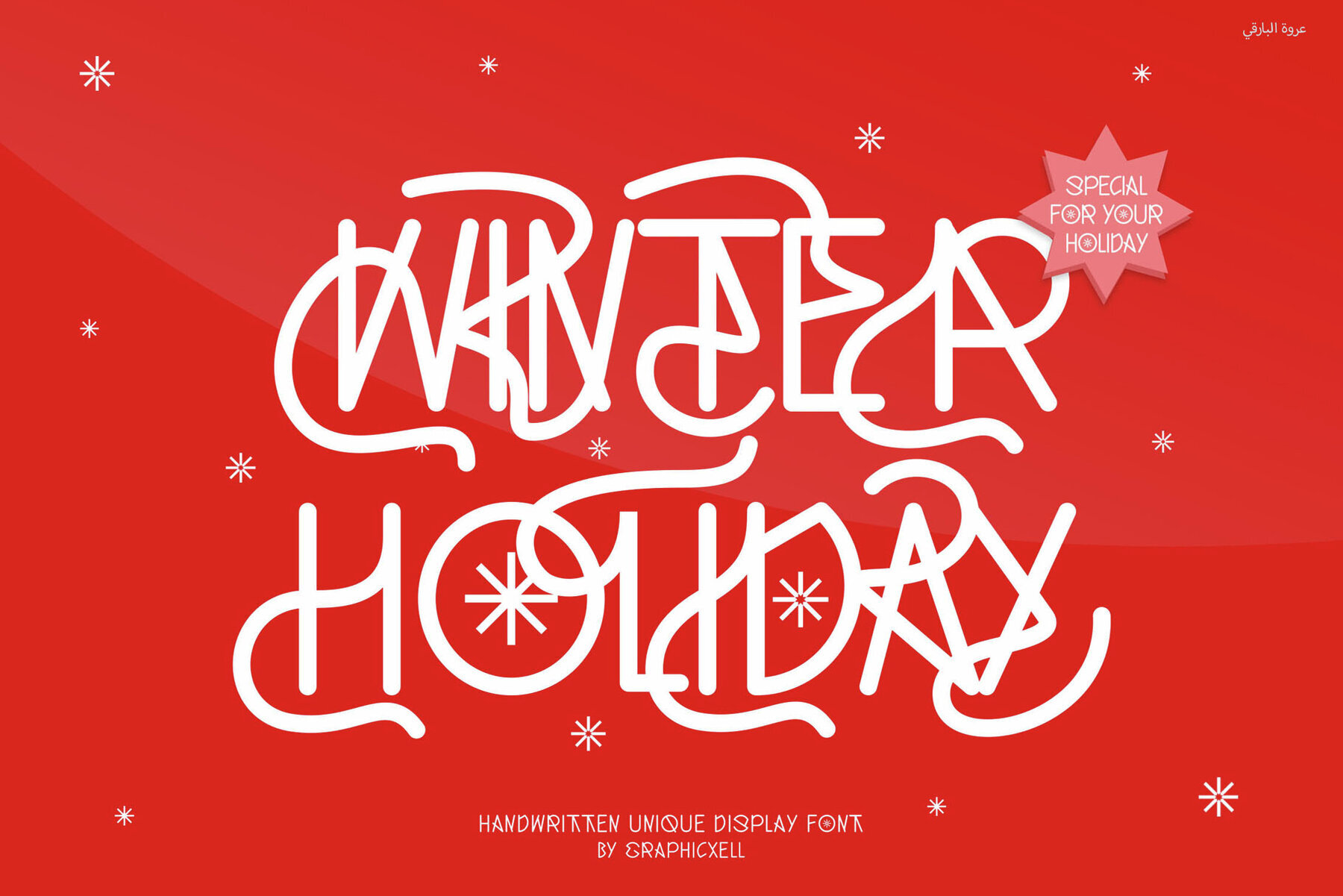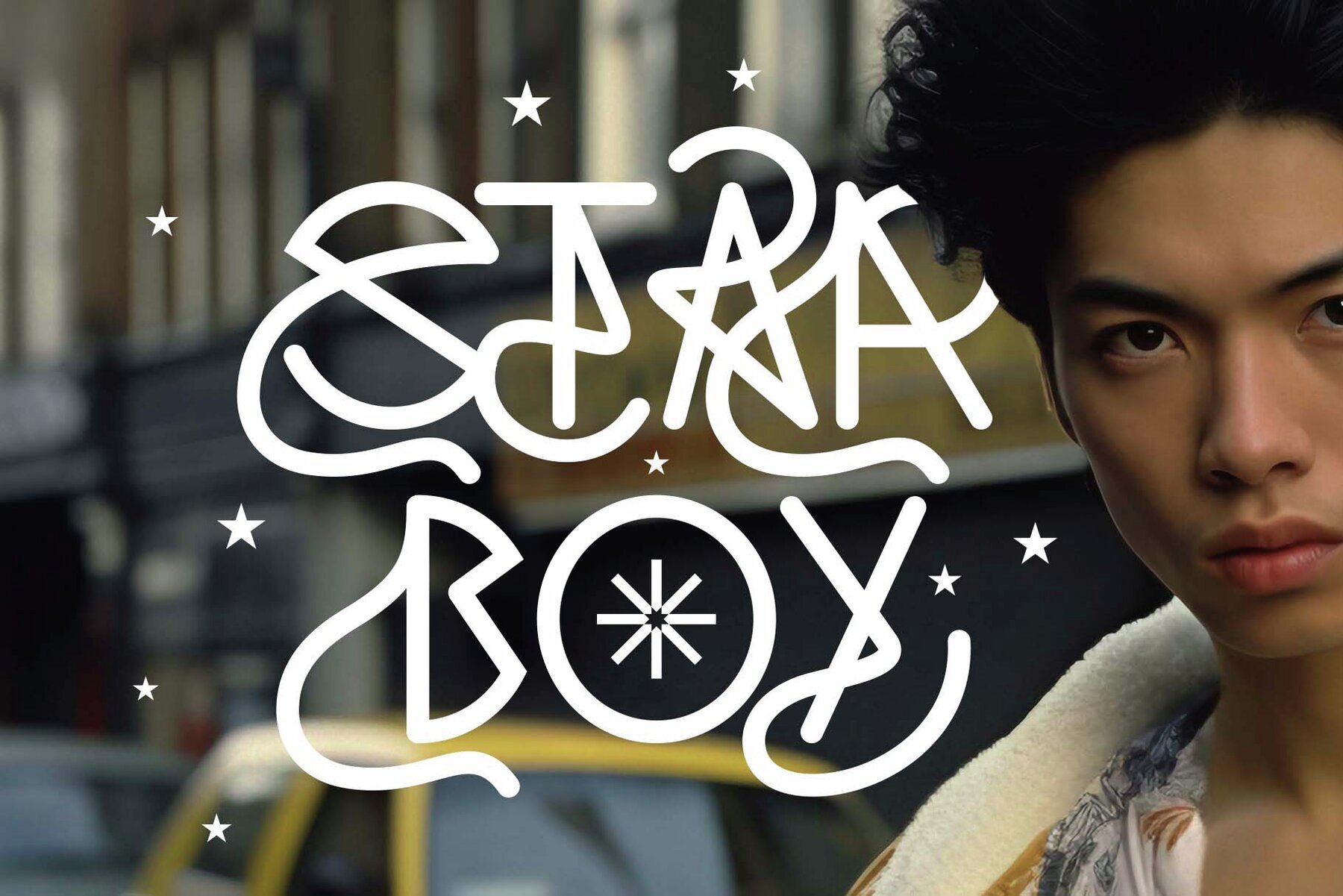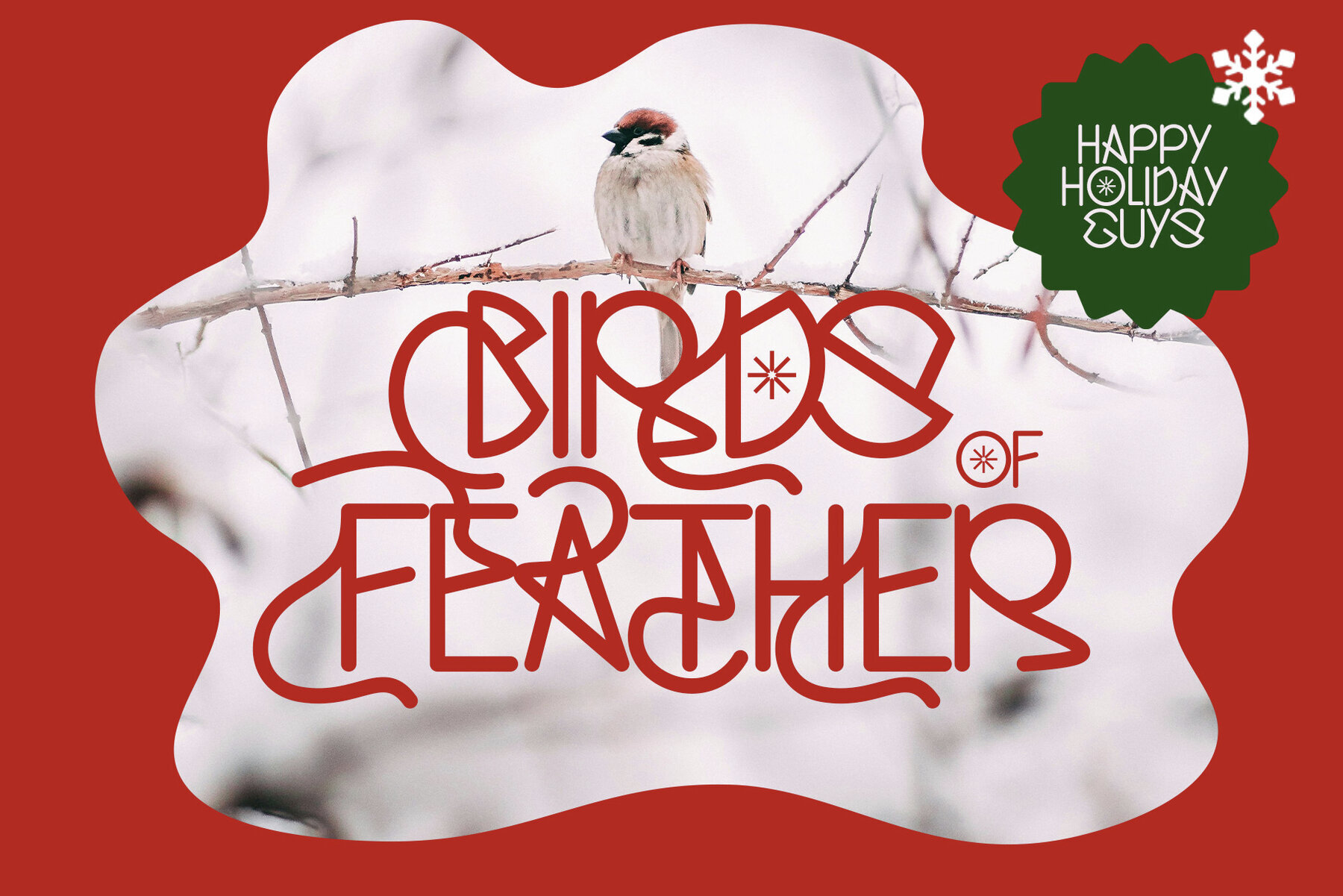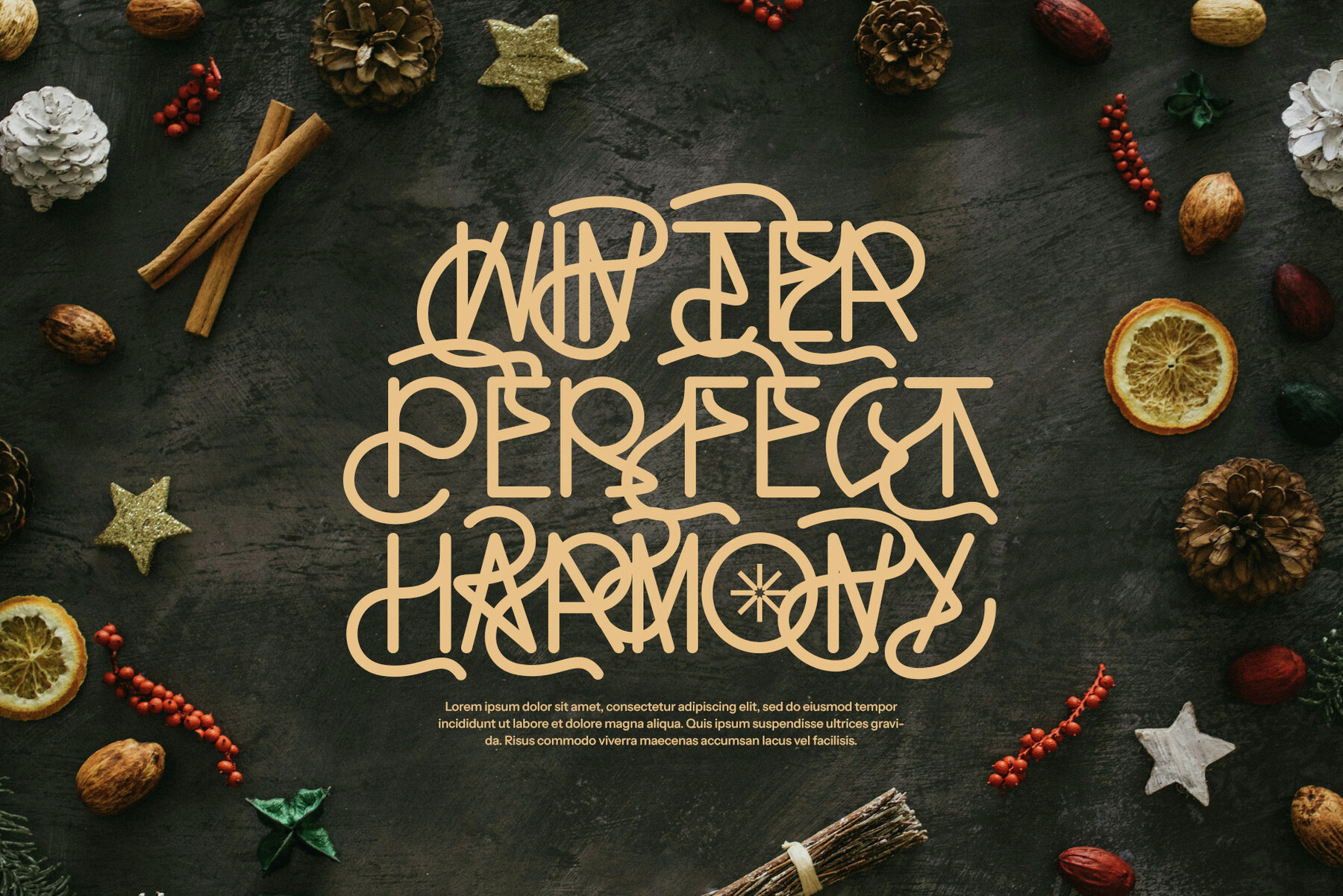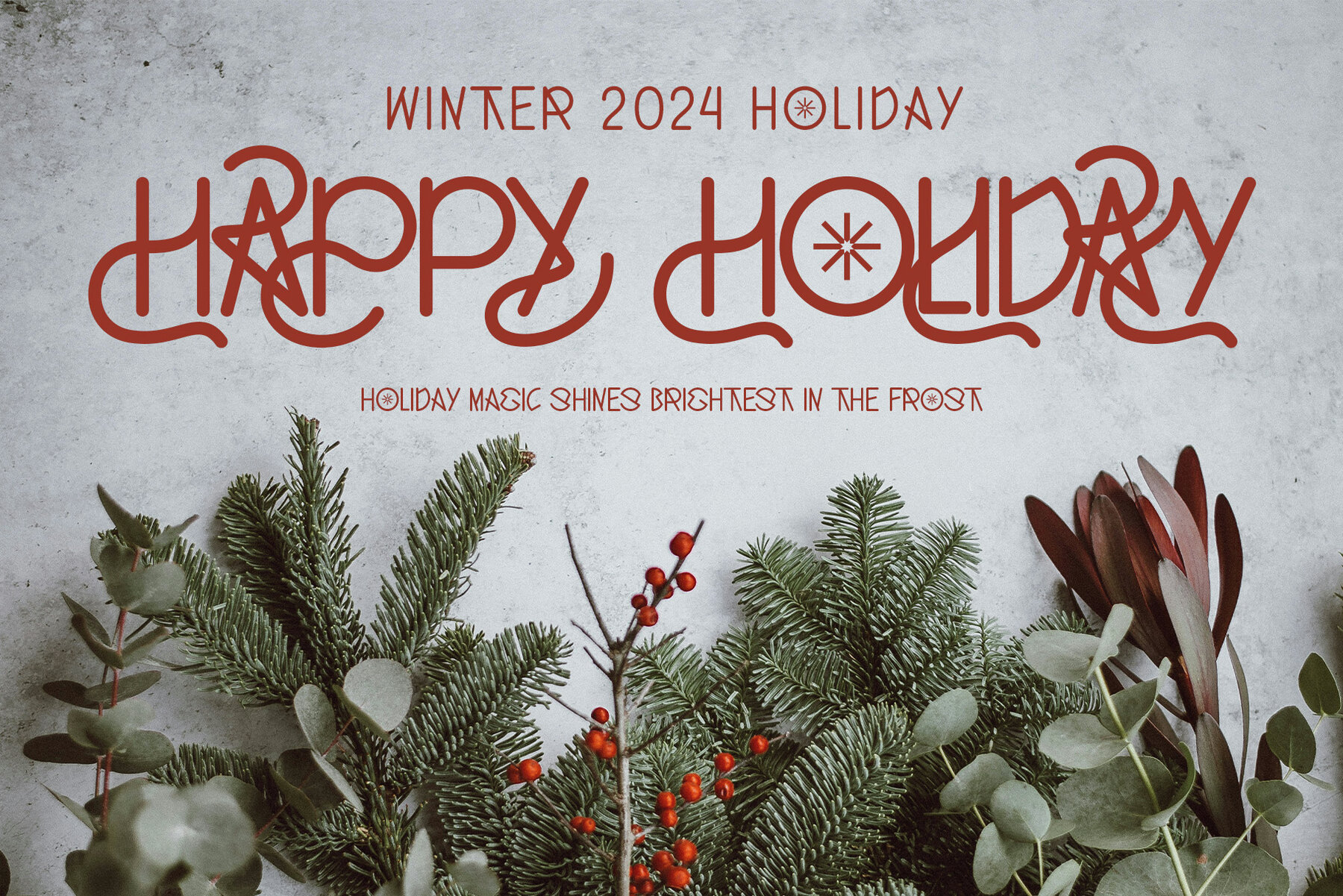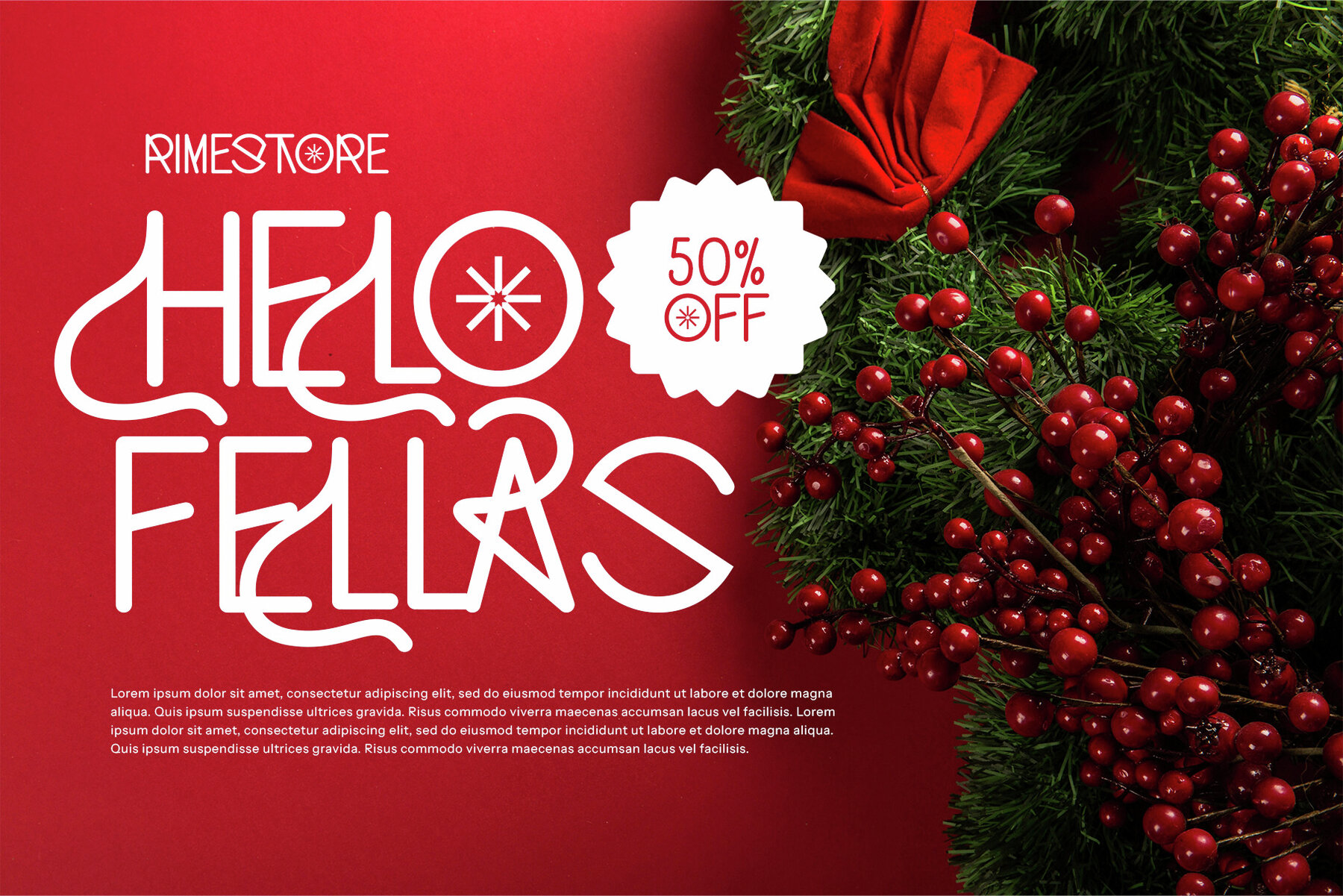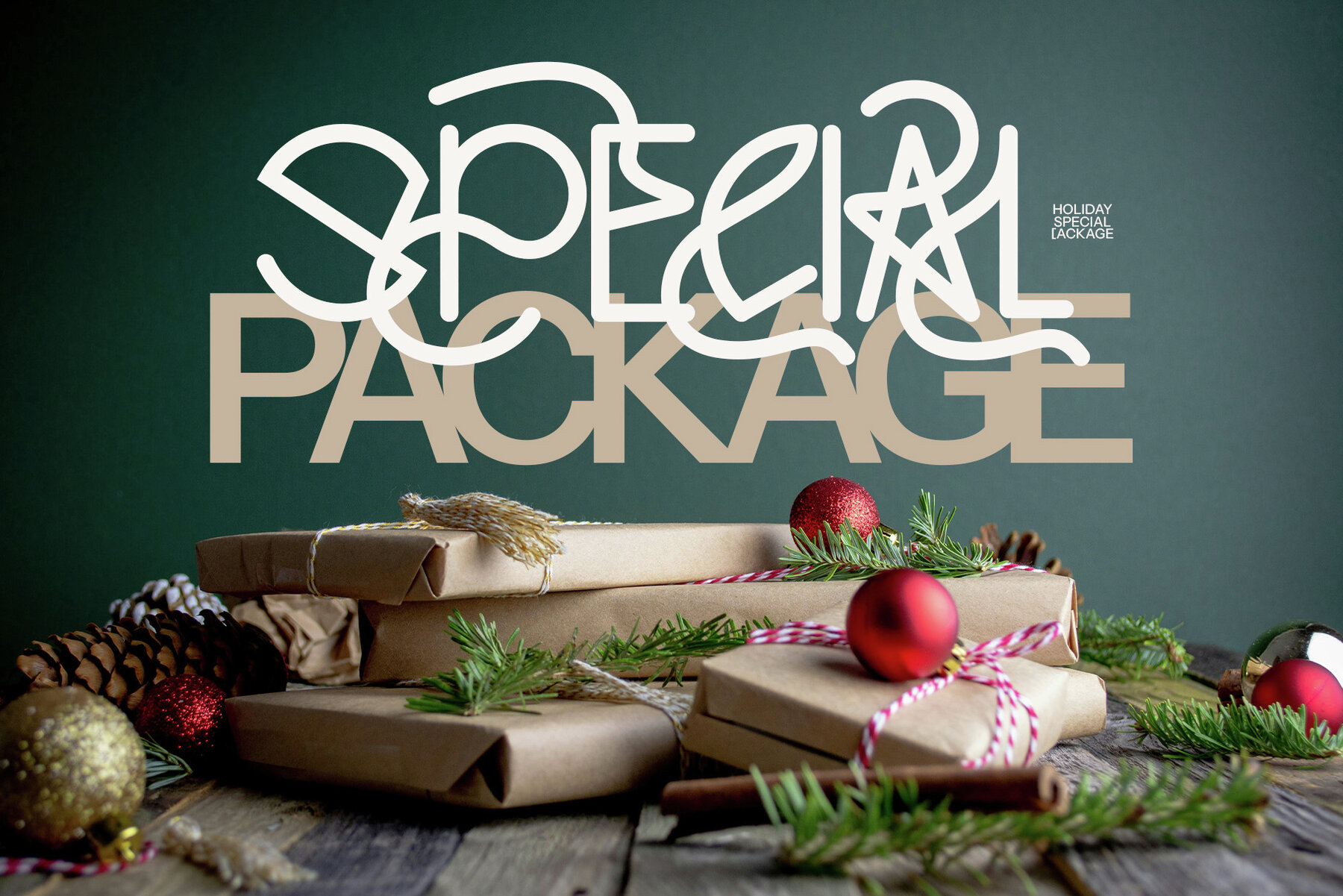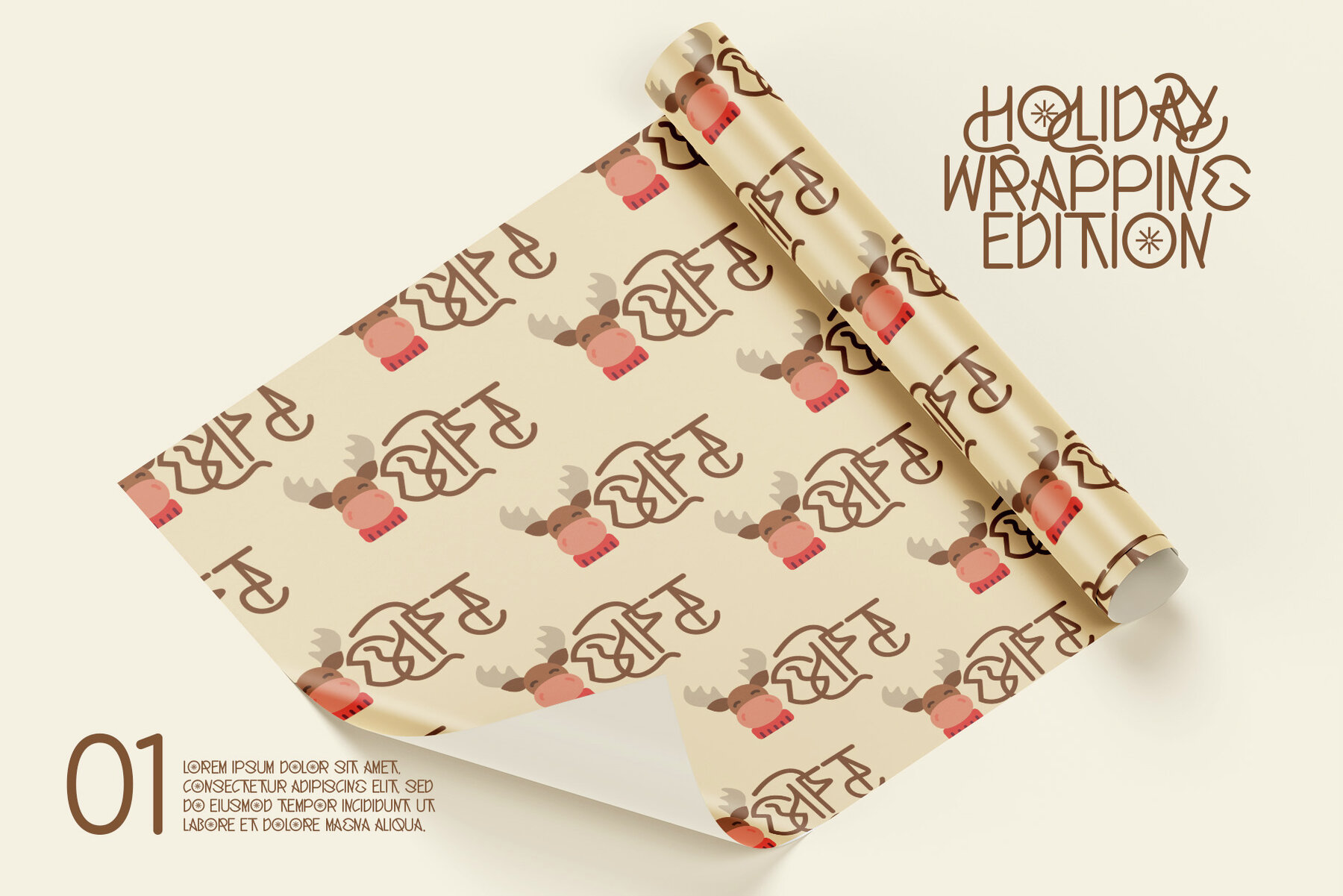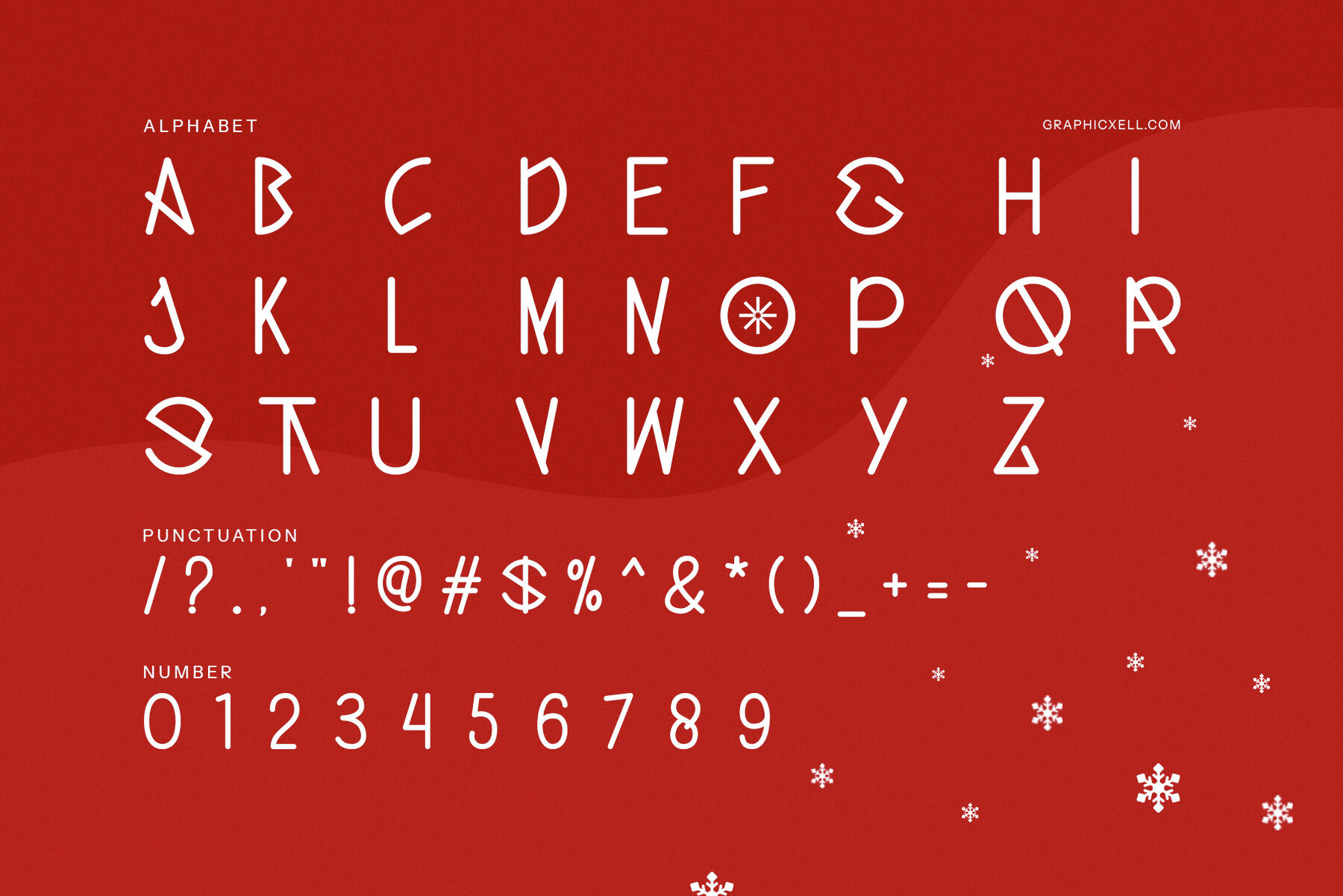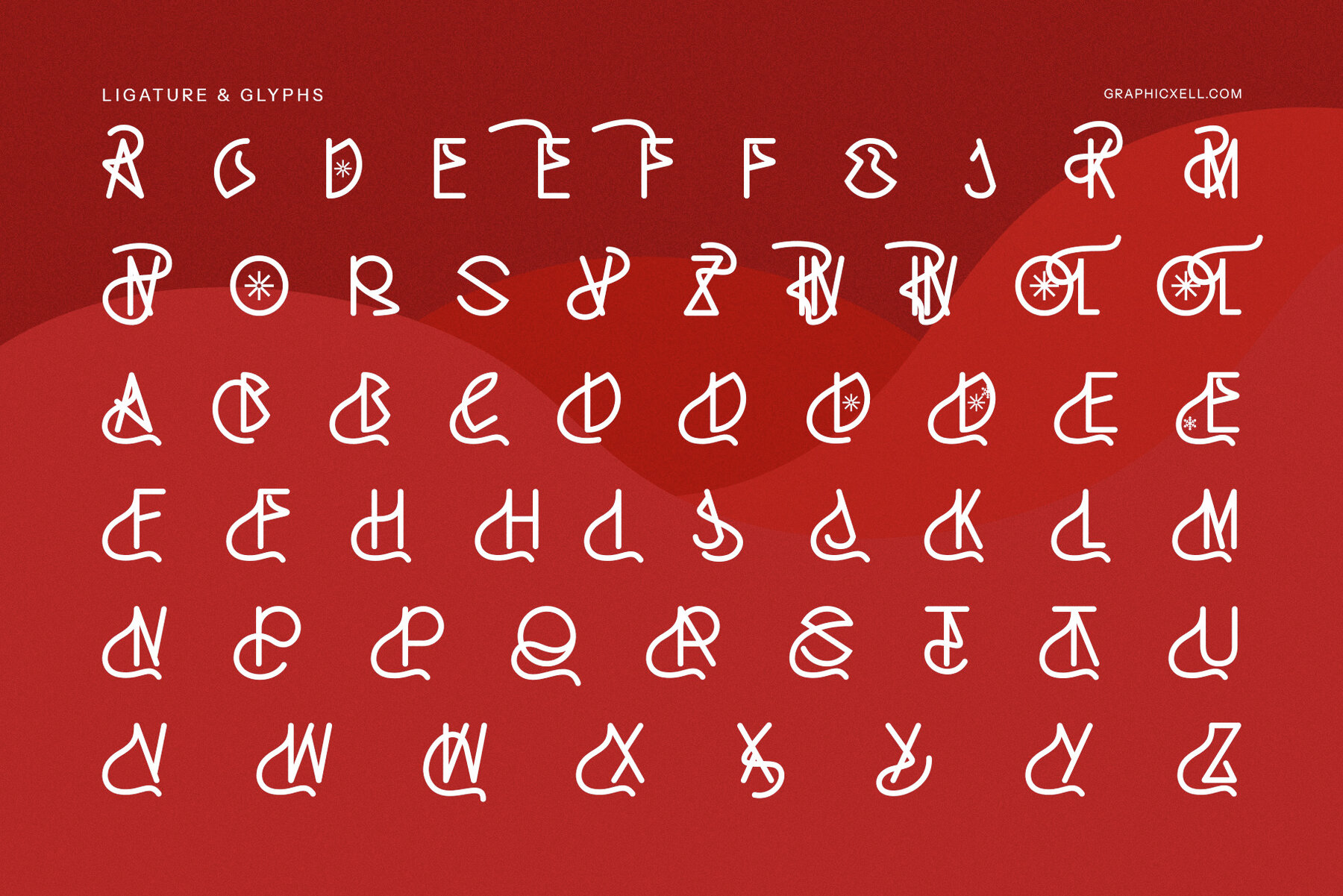
Winter Holiday Font
Winter Holiday
Winter Holiday Unique Display Font is a handcrafted typeface that captures the essence and charm of the winter season. With its flowing, abstract curves and intricate details, this font features festive elements such as stars, snowflakes, and rope tie-like semicircular curves, offering a whimsical and celebratory feel. These decorative elements make it the perfect choice for all winter holiday-themed projects, from Winter and New Year designs to Valentine's Day, Halloween, and Black Friday promotions. The delicate snow variations and seasonal motifs ensure your typography commands attention, whether you're crafting holiday promotions, event invitations, or festive posters.
This versatile font is ideal for creating memorable logos, branding, and typography that encapsulate the magic of the season. It's perfectly suited for Canva templates, magazines, product packaging, advertisements, and social media designs. Its charming and versatile style adapts to a wide array of uses, including product labels, film titles, food packaging, and advertising campaigns. Designers seeking a unique typeface with a seasonal flair will find Winter Holiday Unique Display Font adds personality and a joyful touch to any winter-themed project, ensuring your creations truly stand out.